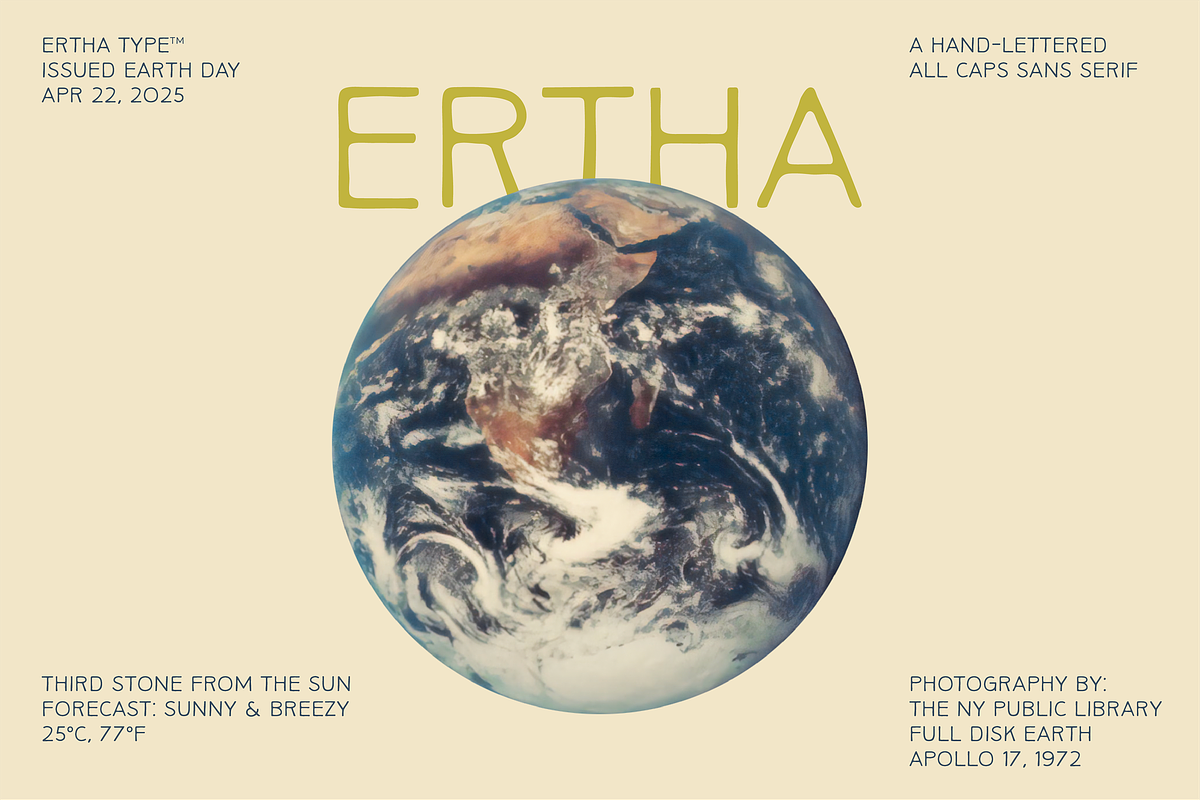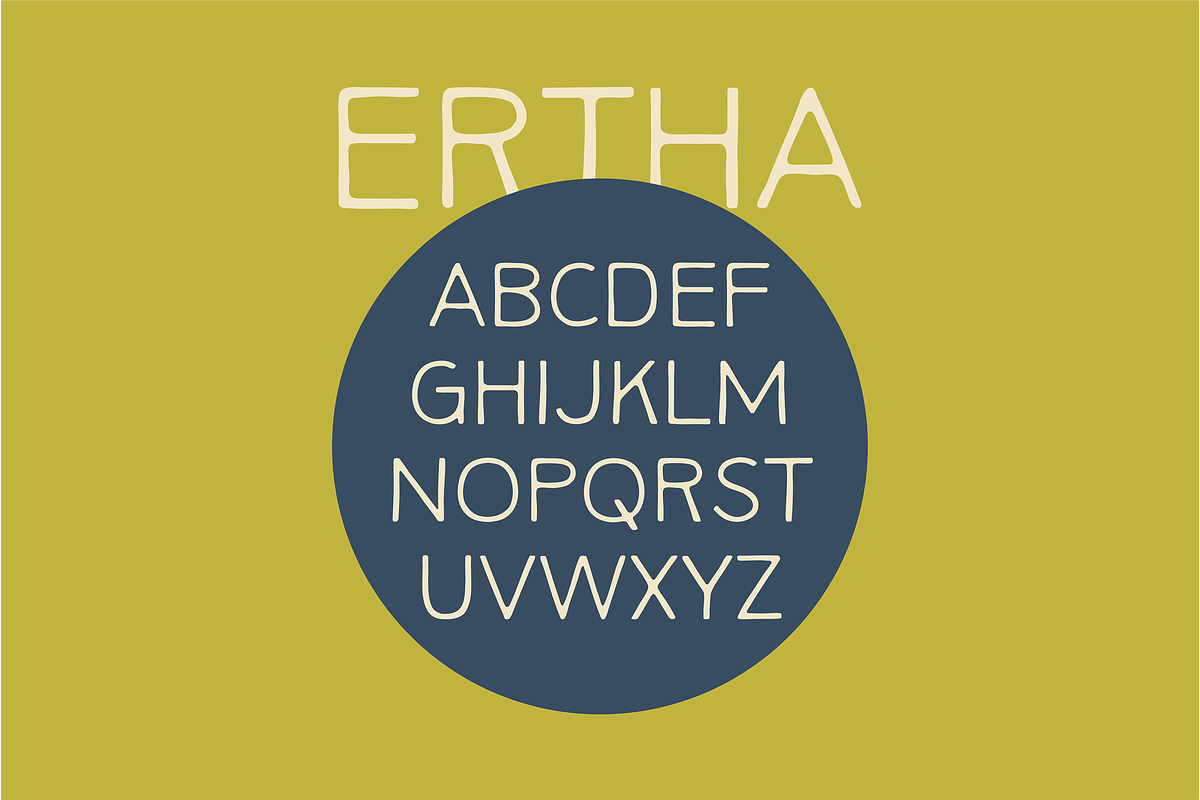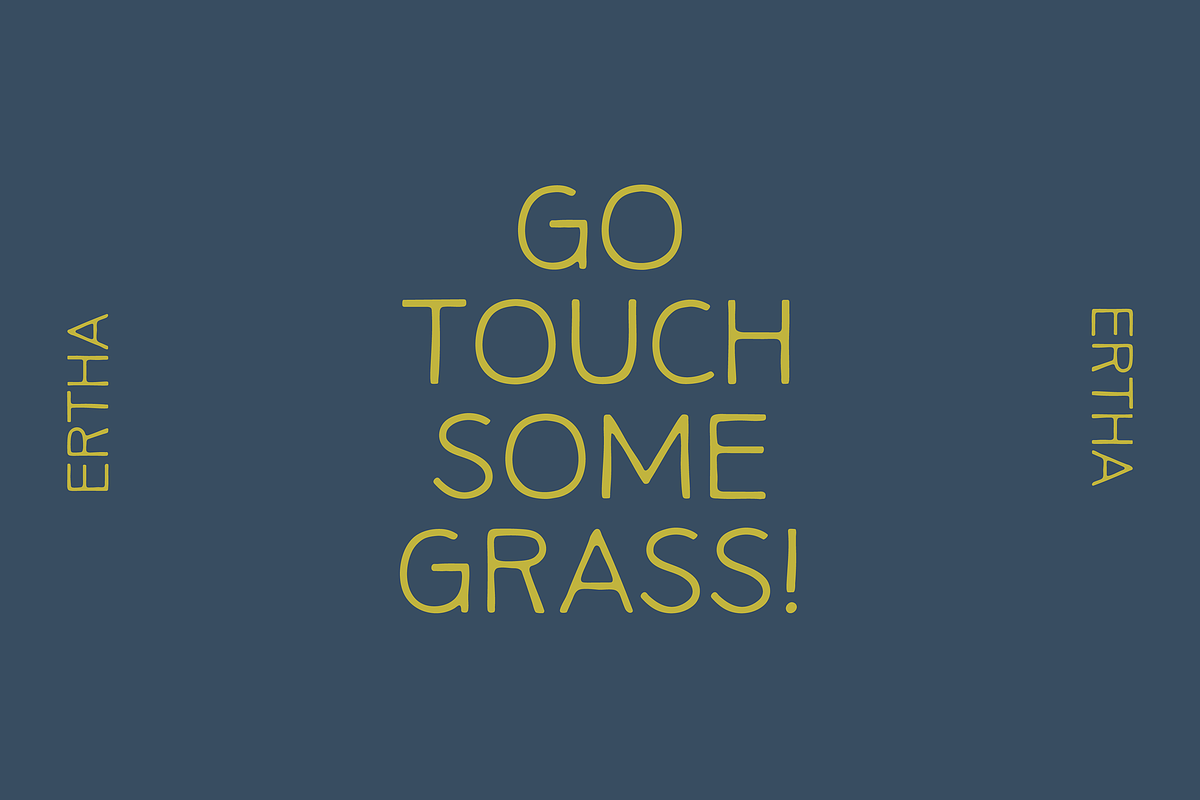
ERTHA by Abby Leighton
About the Font: Ertha is a hand-lettered, tall & twiggy typeface with soft imperfections and earthy character. It’s perfect for adding a grounded, organic feel to your Earth Day designs, nature-inspired branding, or anything that needs a little wild charm.
Use it for: 🌵 Branding & logos 🌊 Apparel & merch 🌀 Album covers, posters, signage & nostalgic vibes